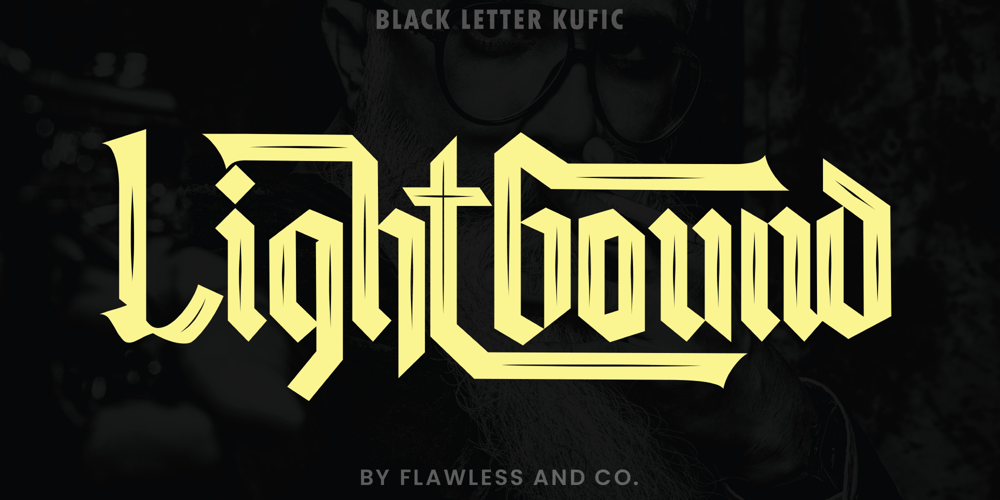
Lightbound Font Family was designed by Achmad Yani and published by Flawlessandco. Lightbound contains 1 styles and family package options. Introducing “Lightbond” – an exquisite blackletter Kufic typeface that fuses ancient calligraphic traditions with a contemporary twist. Inspired by the elegance and geometric precision of Kufic script, Lightbond brings a sense of mystique and cultural richness to your designs. There’s some connected letters and some alternates that suitable for any graphic designs such as branding materials, t-shirt, print, business cards, logo, poster, t-shirt, photography, quotes .etcThis font support for some multilingual. Also contains uppercase A-Z and lowercase a-z, alternate character, numbers 0-9, and some punctuation.If you need help, just write me! Thanks so much for checking out my shop!